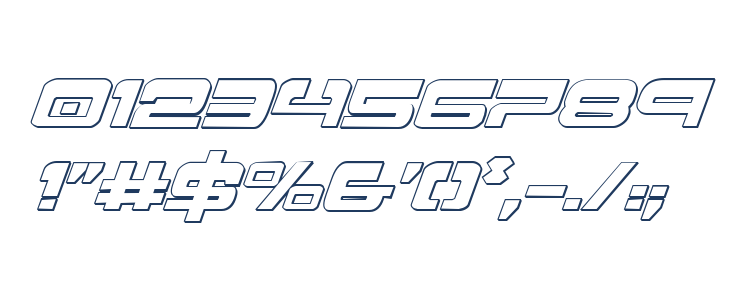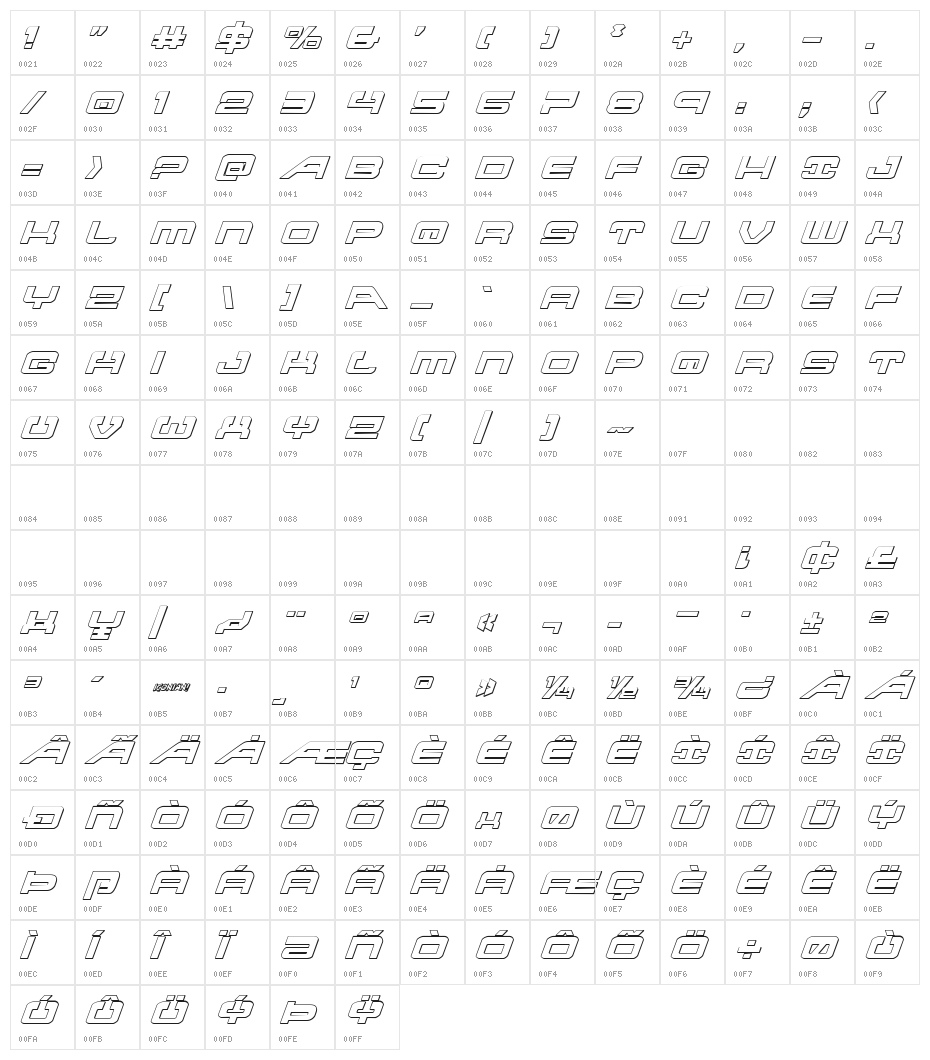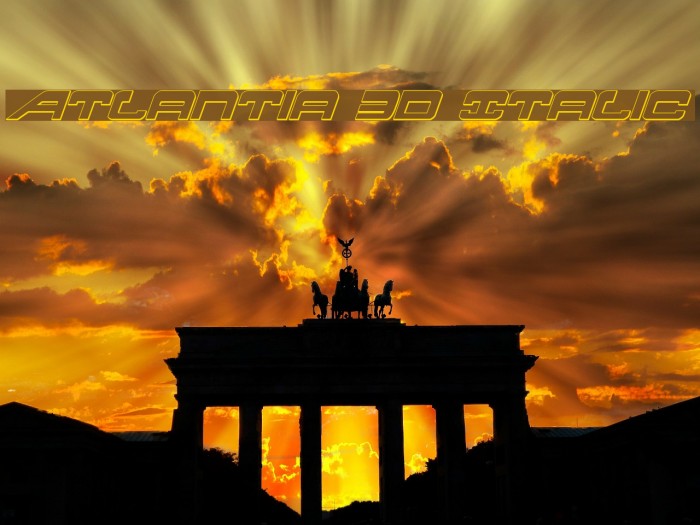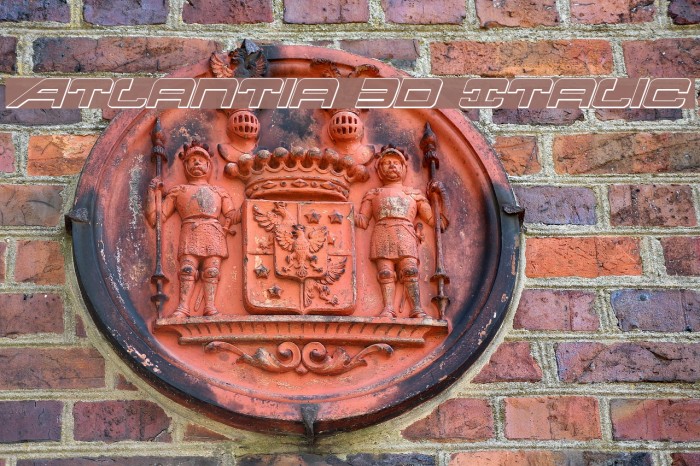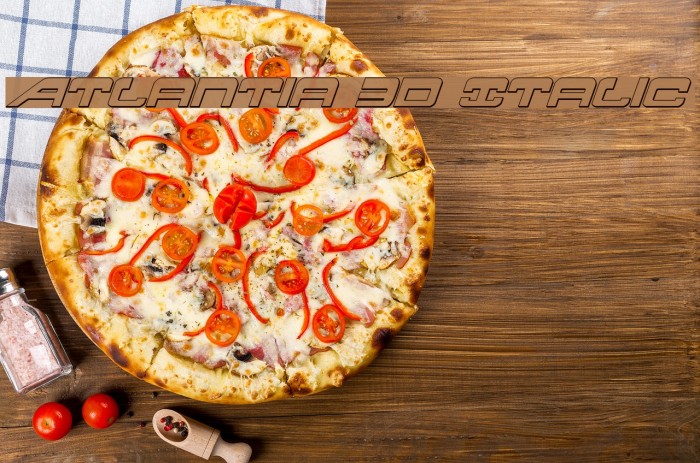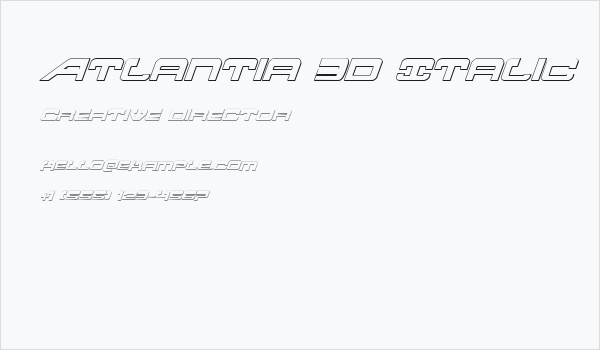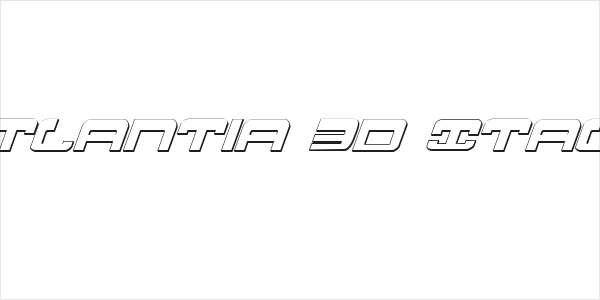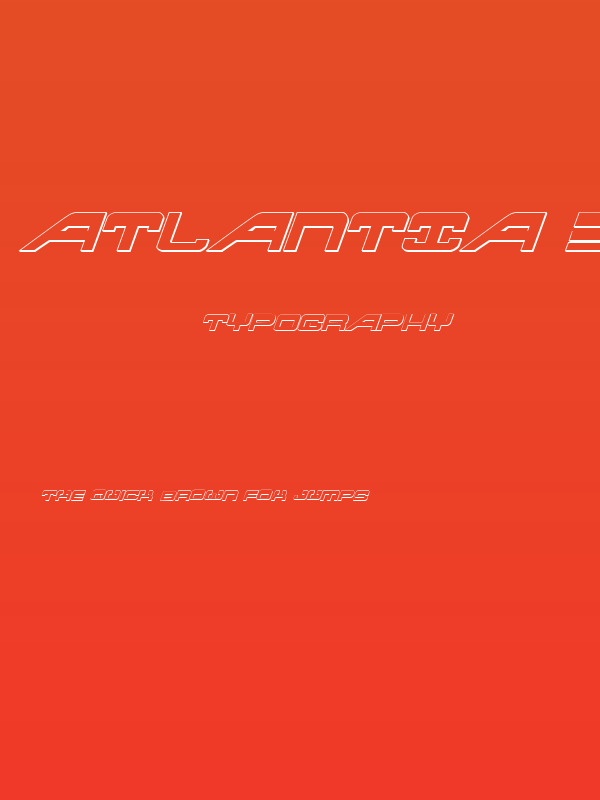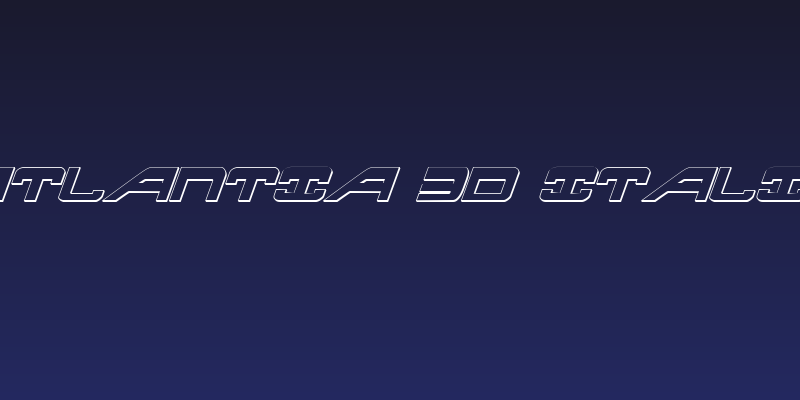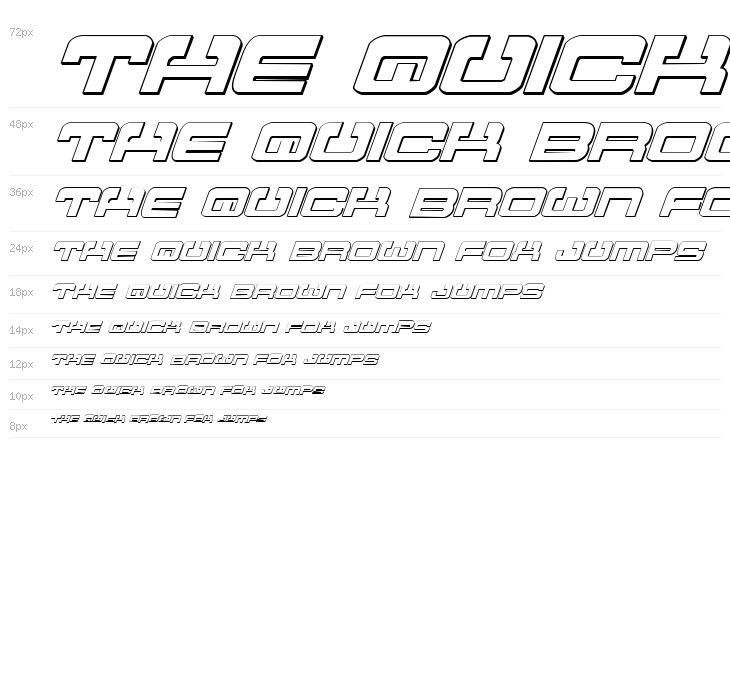
Atlantia 3D Italic Font
Atlantia 3D Italic Description
This font features a futuristic and dynamic design with a 3D effect, characterized by its italicized and angular letterforms. The outlines are bold and geometric, giving each character a sense of depth and movement. The uppercase and lowercase letters maintain a consistent style, with sharp edges and a sleek, modern appearance. The numerals and special characters are designed to match the overall aesthetic, ensuring a cohesive look across all elements. This font is ideal for projects that require a bold and eye-catching typeface with a modern twist.
| Proposed Projects | Ideal for sci-fi themed designs, video game titles, tech branding, and futuristic posters. |